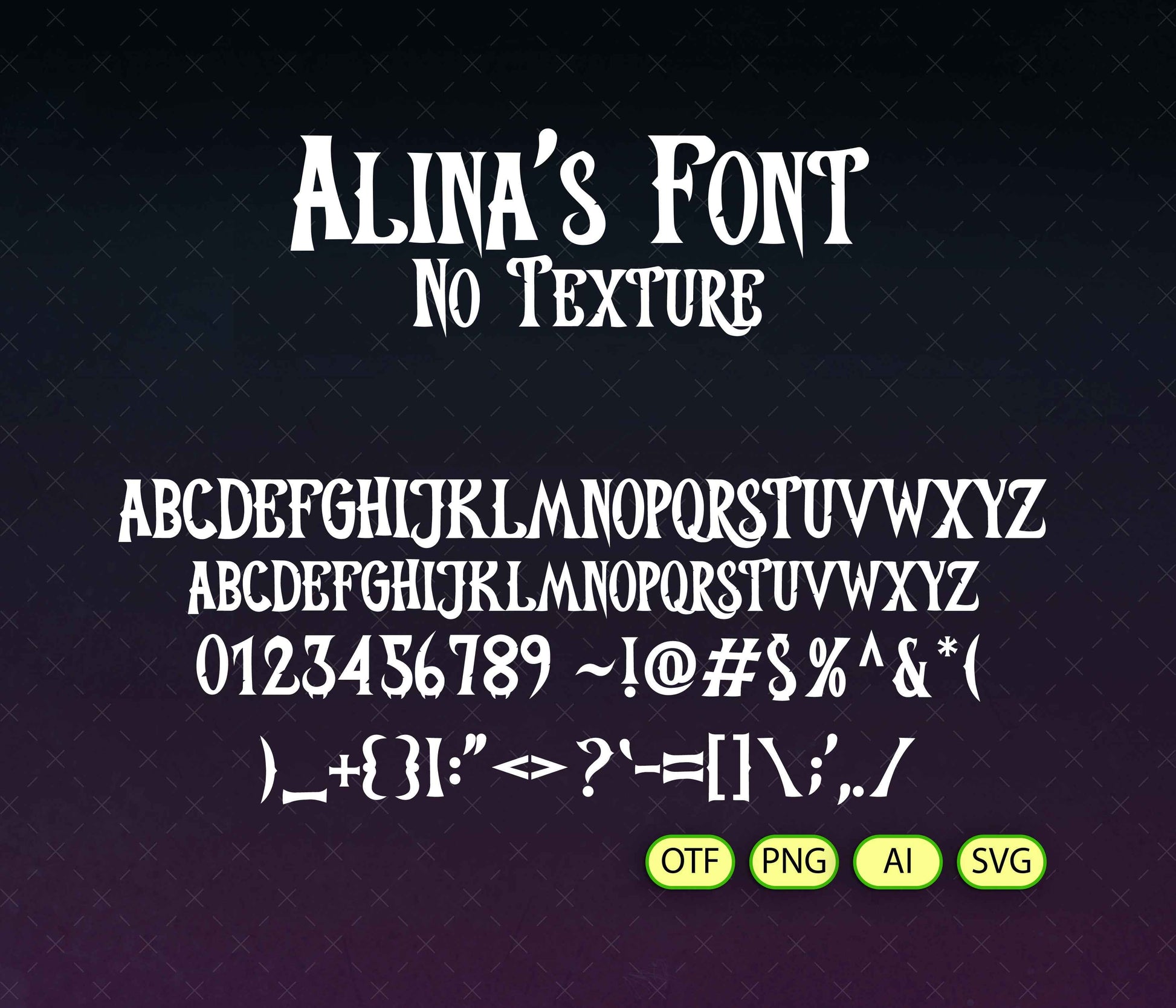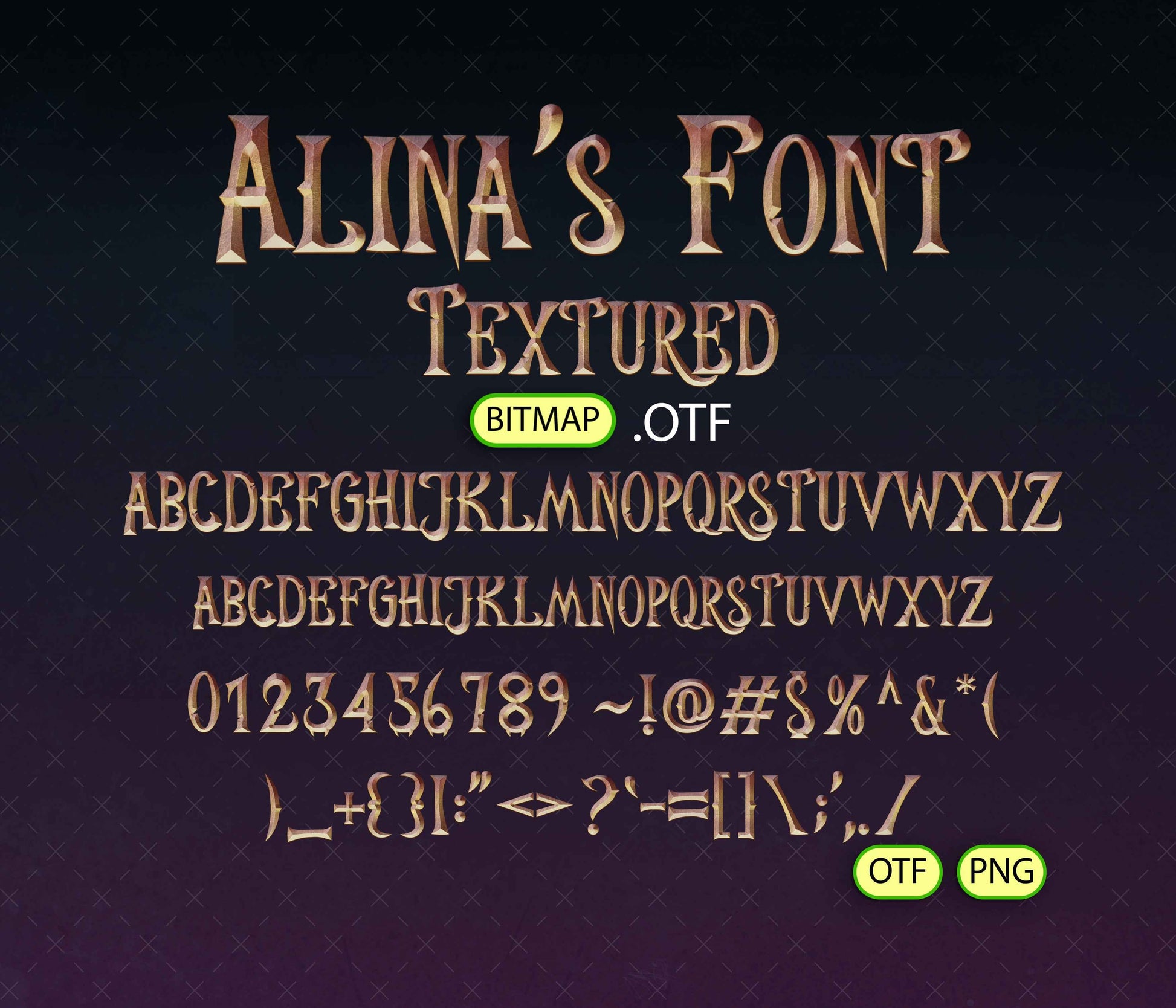
Monster Resort Font Textured
Monster Resort Textured Font: A Transylvanian Typographic Tale
Dive into a realm of spooky charm with the Monster Resort Textured Font: A Transylvanian Typographic Tale. Inspired by the quirky and adventurous spirit of animated monster movies, this textured font embodies the eerie yet playful ambiance of a lavish resort for supernatural beings. Each character in this font is a ticket to a grand estate for monsters, intricately designed to capture the fun-filled spooky essence that defines these animated adventures.
The textures within each character evoke the ancient, gothic charm of Transylvania, adding a layer of mystical elegance to your projects. The "Monster Resort Textured Font" is not just a typeface; it's a narrative tool that transforms your creative projects into captivating stories filled with ghostly fun and adventure.